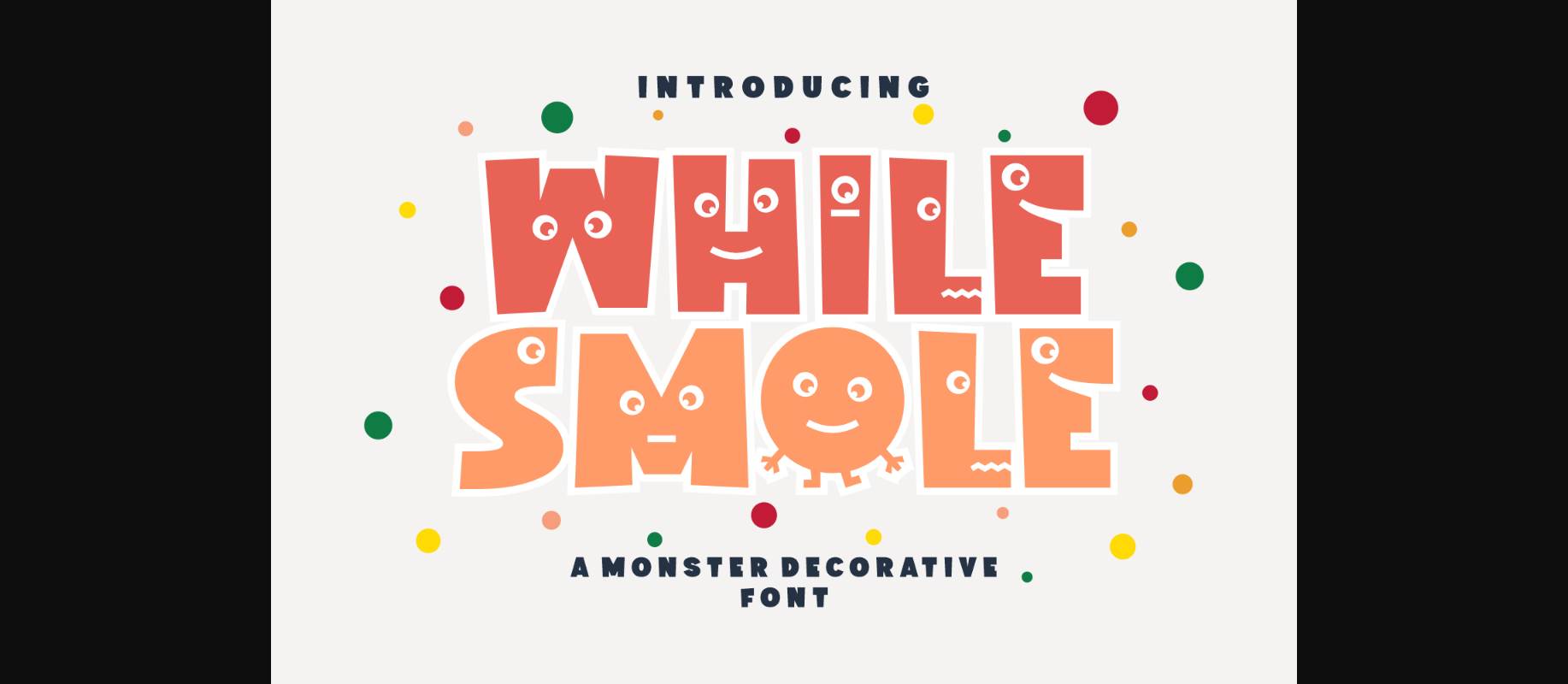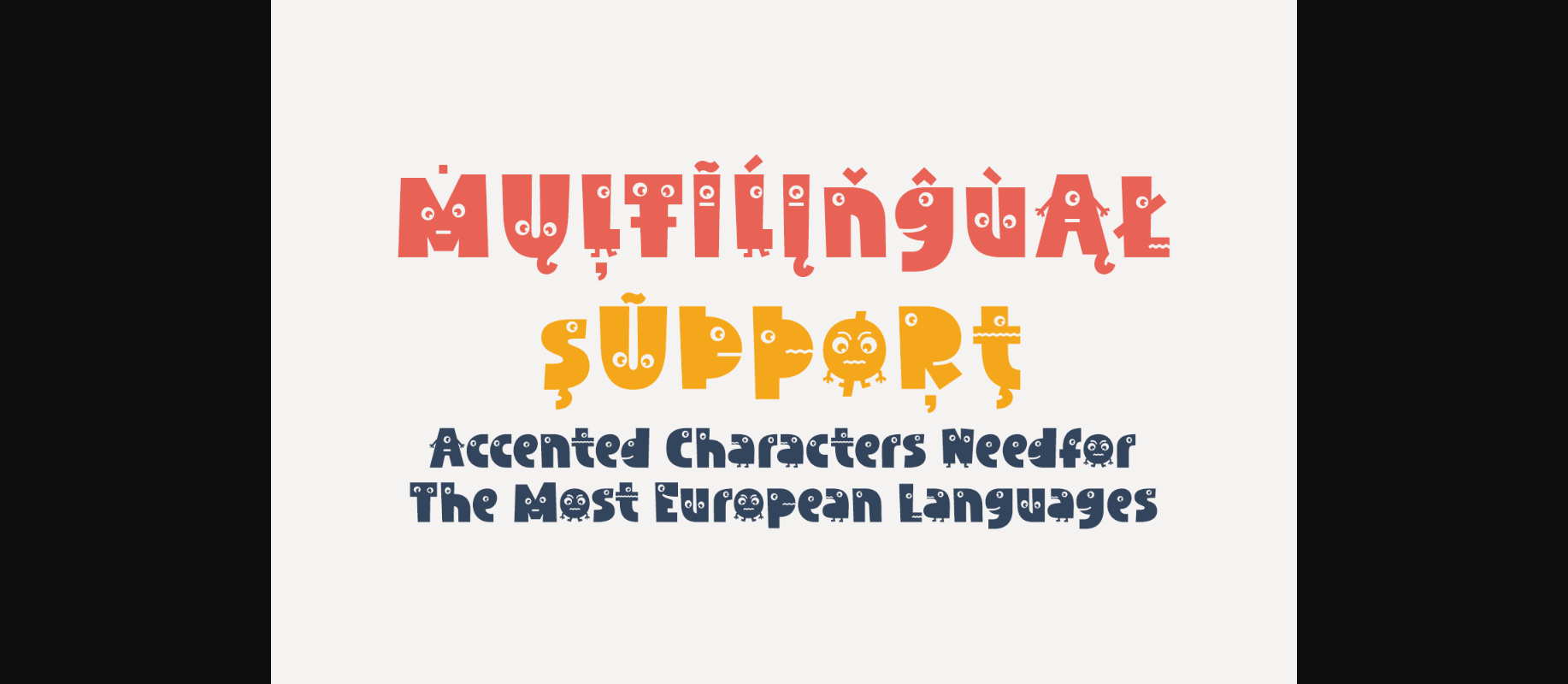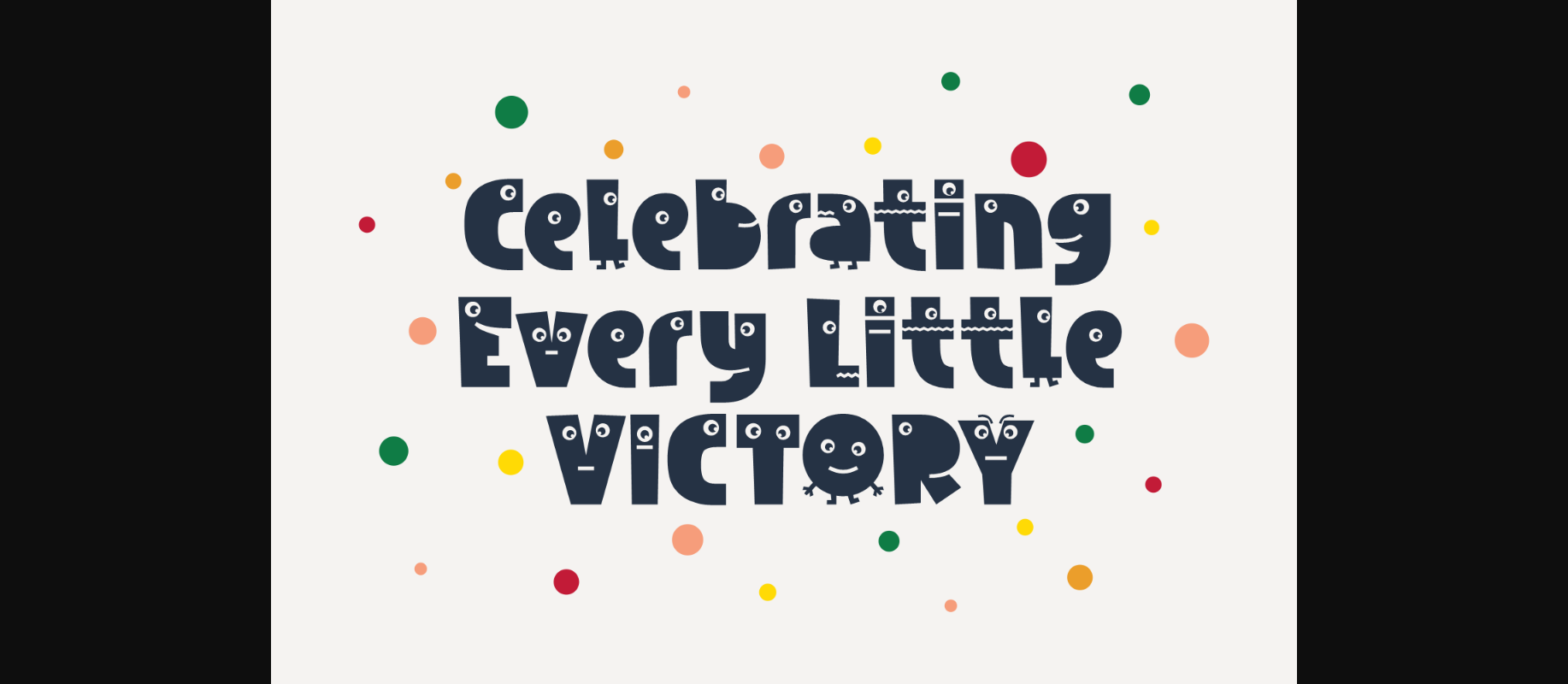
About While Smole Font
While Smole is a decorative font with cute monster eyes and smiles. It is a playful and whimsical typeface that adds a touch of charm to any design. Each letter is crafted with adorable monster eyes and a cheerful smile, bringing a sense of joy and lightheartedness to your text. Whether used for invitations, children’s books, or playful graphics, this font is sure to captivate and delight audiences of all ages.